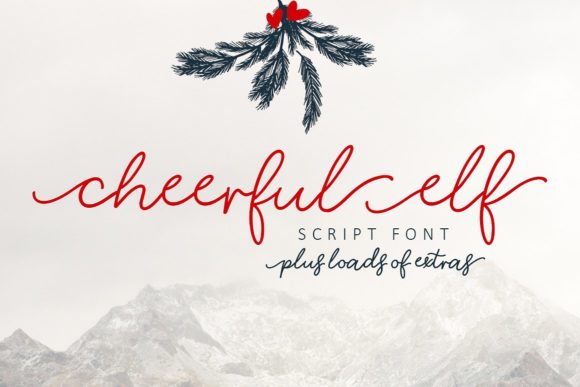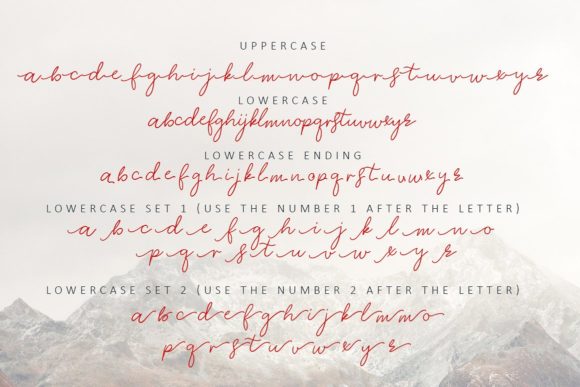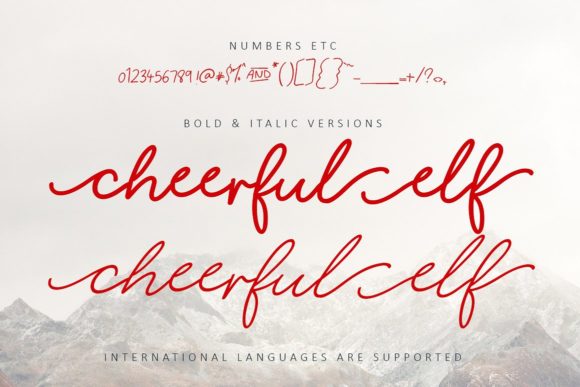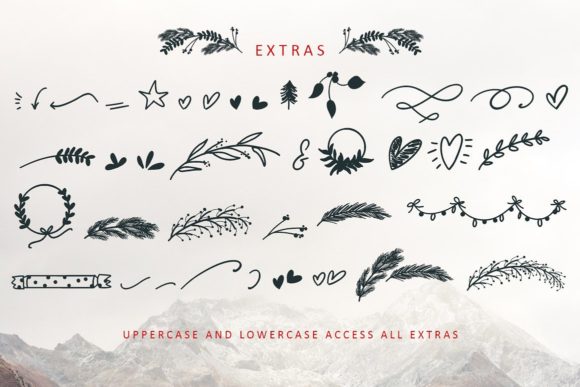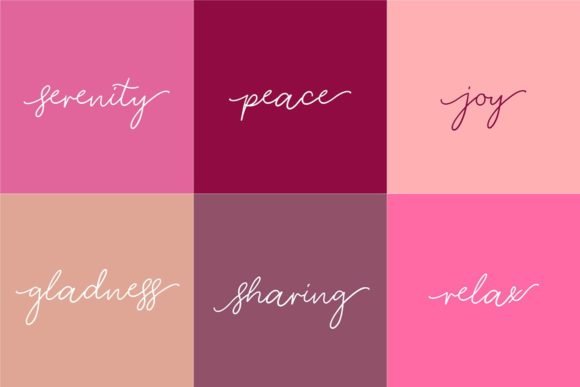
Cheerful Elf Font
About Cheerful Elf Font
The Cheerful elf is a fun font, loaded with adorable swashes and extras.
It’s comes in a regular, bold and italic style and is perfect for many applications!